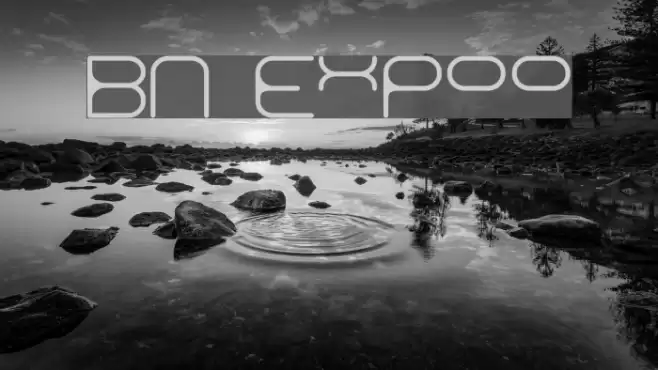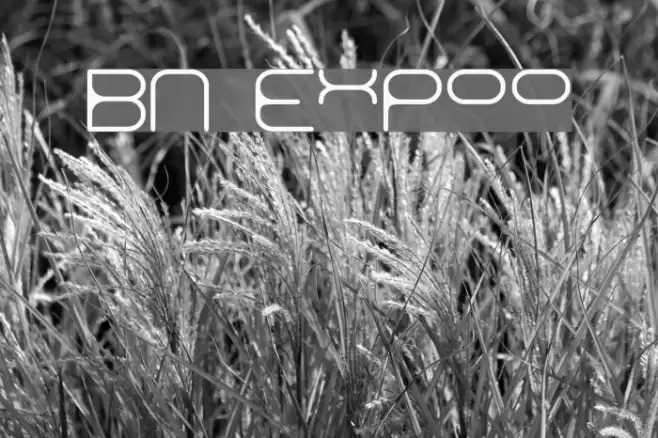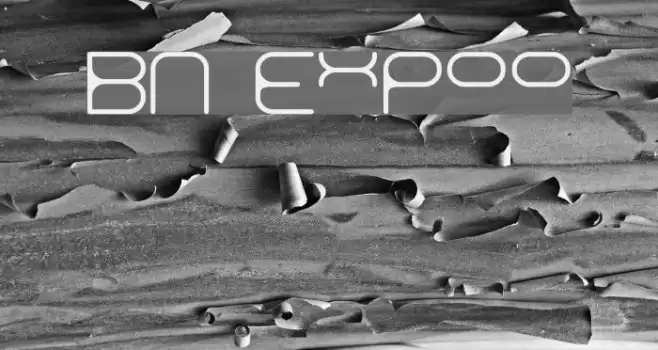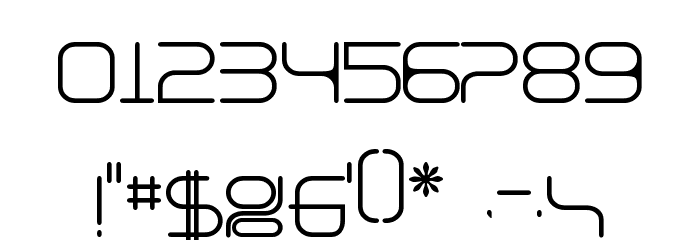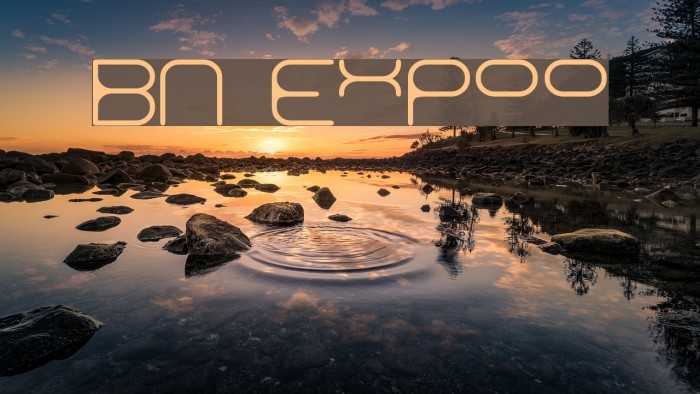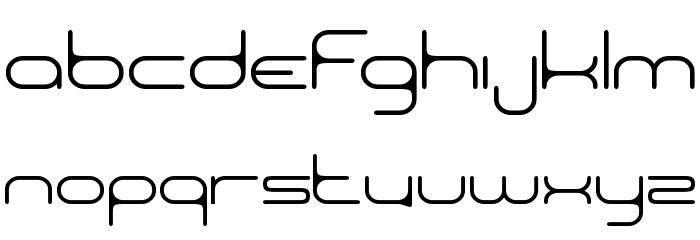
BN Expoo Font
BN Expoo Description
This font features a sleek, modern design with rounded edges and a geometric structure. The characters are uniform in height and width, creating a harmonious and balanced appearance. The uppercase and lowercase letters maintain a consistent style, with smooth curves and clean lines. The numerals and special characters are designed to match the overall aesthetic, offering a cohesive look across all elements. The font's futuristic feel makes it ideal for projects that require a contemporary and innovative touch.
A modern, geometric font with rounded edges and a sleek design from Futuristic fonts.
- Proposed Projects: Ideal for tech branding, modern advertising, digital interfaces, and futuristic designs.
- Use Case: Headlines, Logos, Digital Interfaces